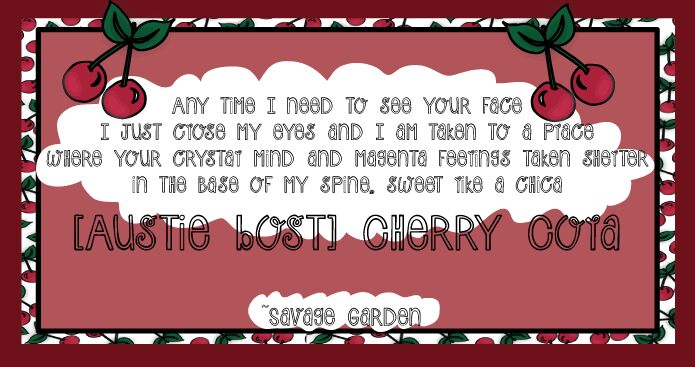
Austie Bost Cherry Cola by Austin Owens is a free outlined comic display font with tall, loose lettering. Its narrow shapes wobble gently, with uneven curves and changing widths that give the alphabet a hand-drawn bounce. Small curls and looped details appear inside several letters, adding a playful decorative streak.
The curls echo doodled illustrations on children's book covers. They also link soda packaging and music posters through the same cheerful, offbeat line work.